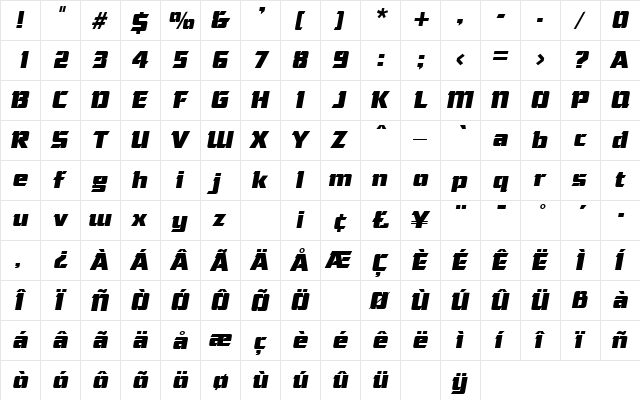
Cornered Italic
Design Context for Cornered Typeface
Cornered offers clean, dependable letterforms without strong stylistic allegiance, making it a practical choice for designers who need flexibility. Its italic angle brings a sense of urgency and motion to the letterforms.
Pro Tip: Try Cornered for annotation and caption copy alongside an upright companion — the contrast in angle creates a dynamic but ordered typographic system.